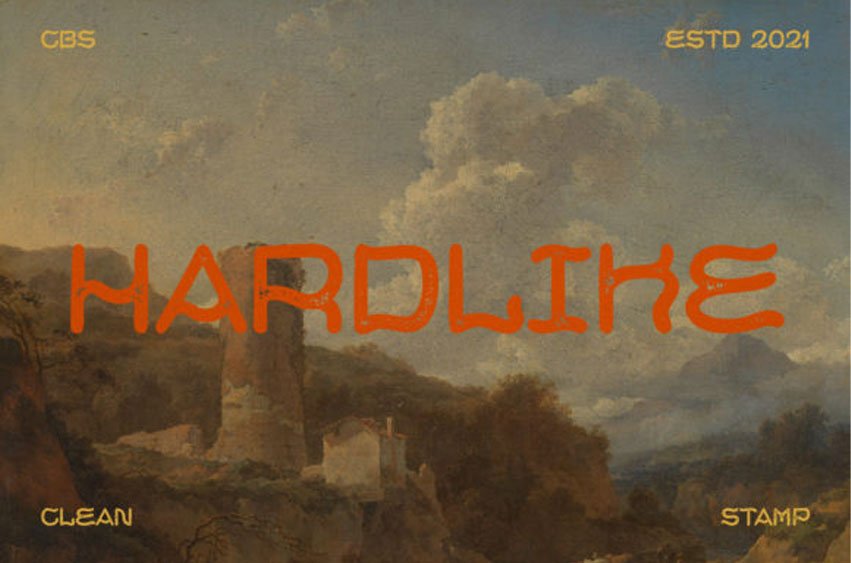
Hardlike Font is a clean and bold display font with a cool stamp effect. Use it for vintage or retro creations, boho designs, artistic projects, or anything else.